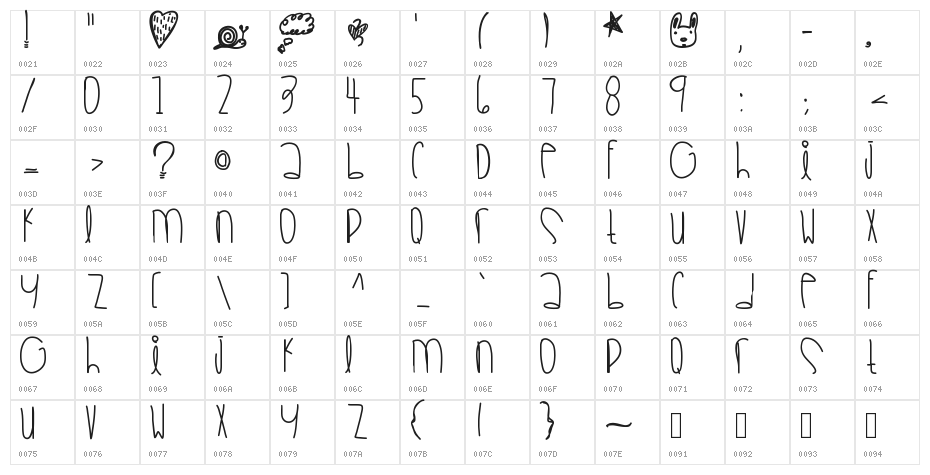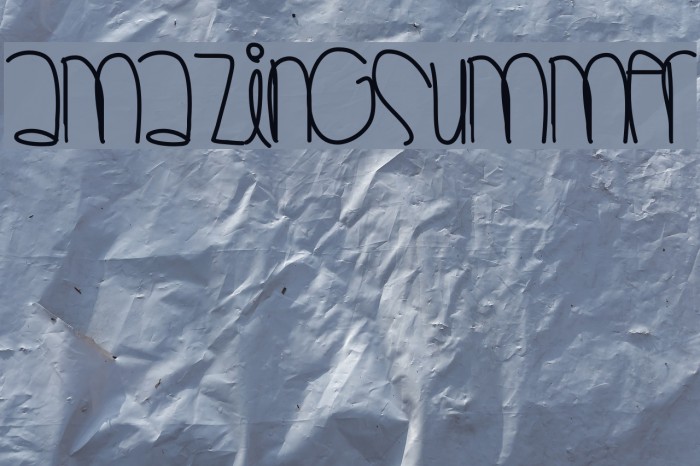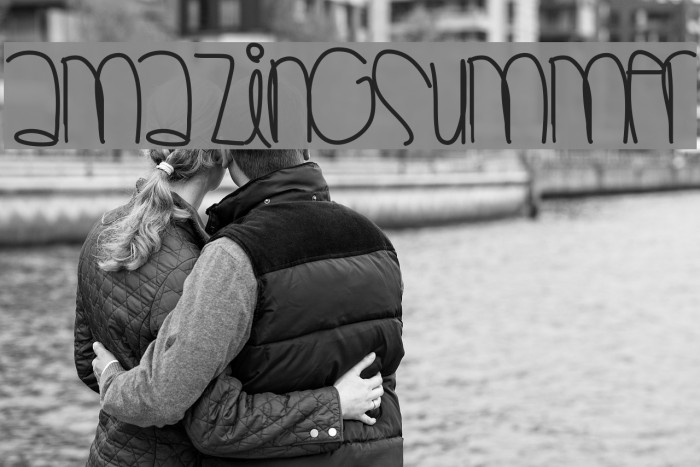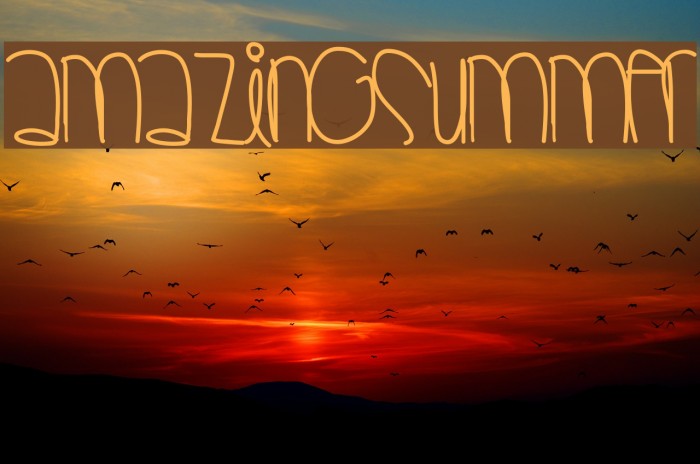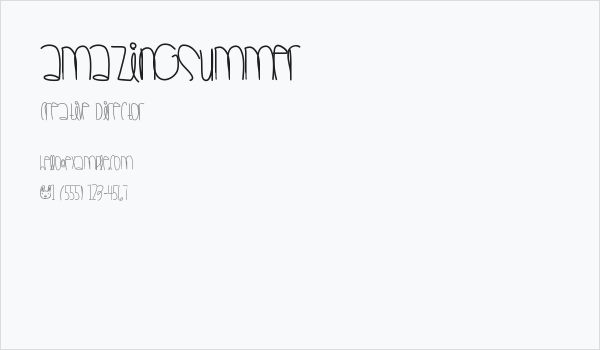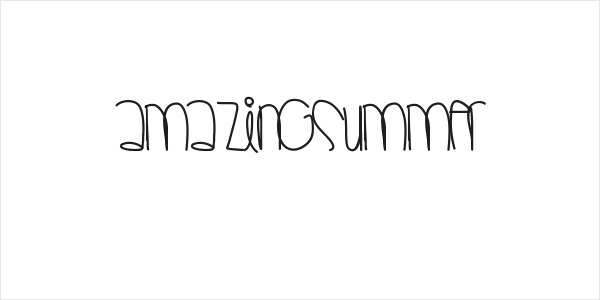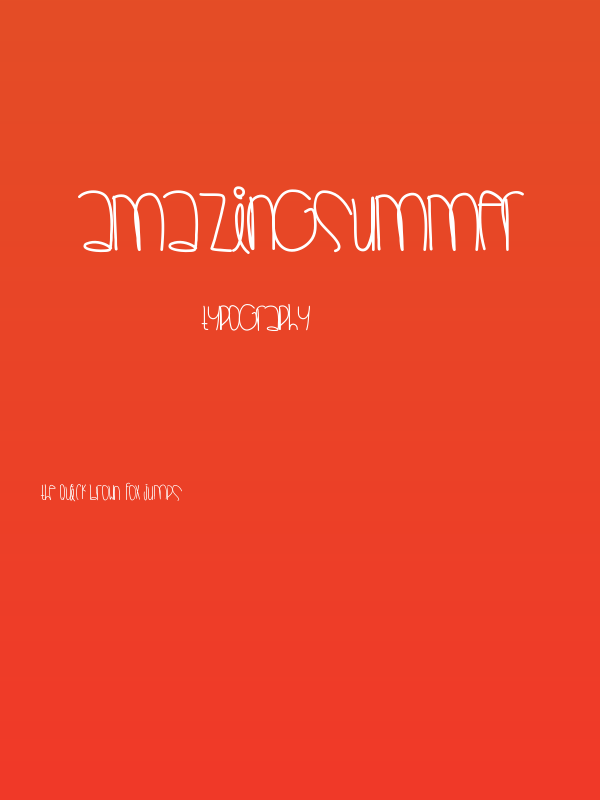
AmazingSummer Font
AmazingSummer Description
This font features a playful and whimsical design with tall, narrow letters that have a hand-drawn appearance. The strokes are thin and consistent, giving it a light and airy feel. The characters are slightly irregular, adding to the casual and informal style. The font includes both uppercase and lowercase letters, numbers, and a selection of special characters. Its unique style makes it stand out, perfect for creative projects that require a touch of fun and personality.
| Proposed Projects | Ideal for children's book covers, playful invitations, greeting cards, and creative branding projects. |